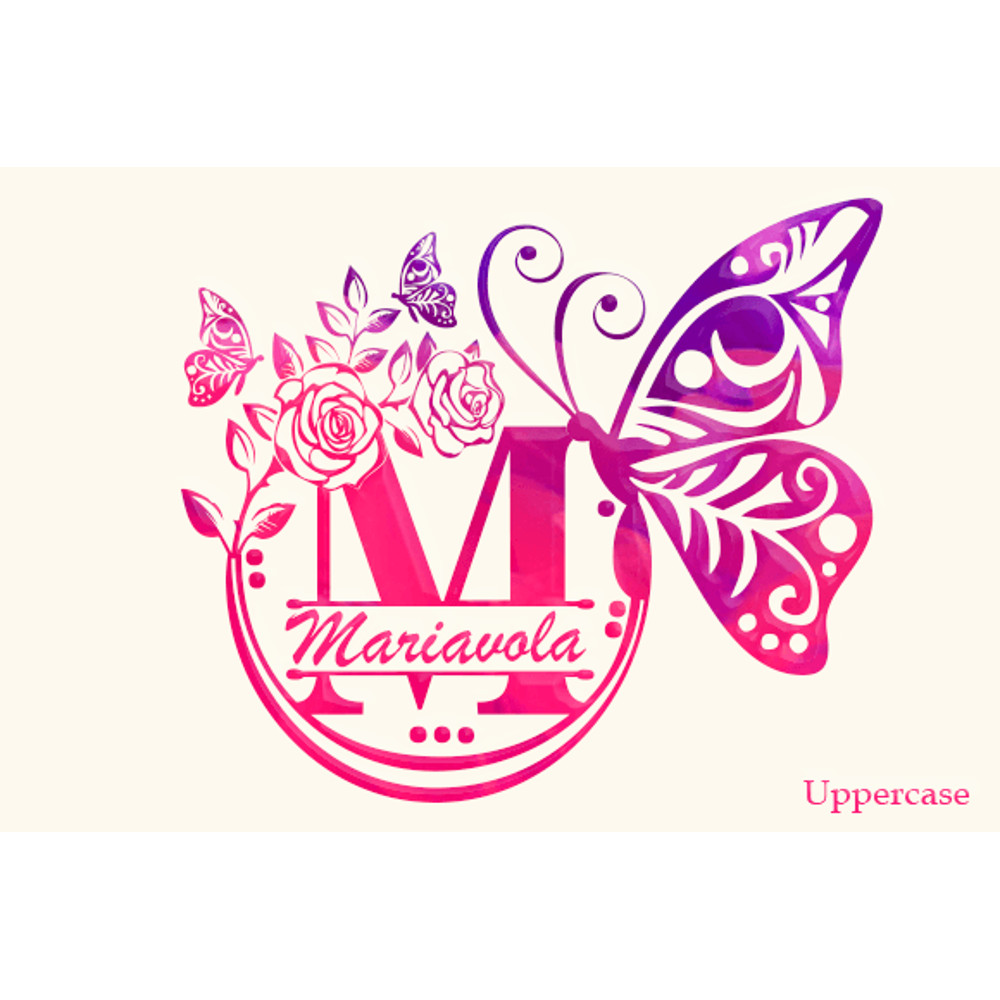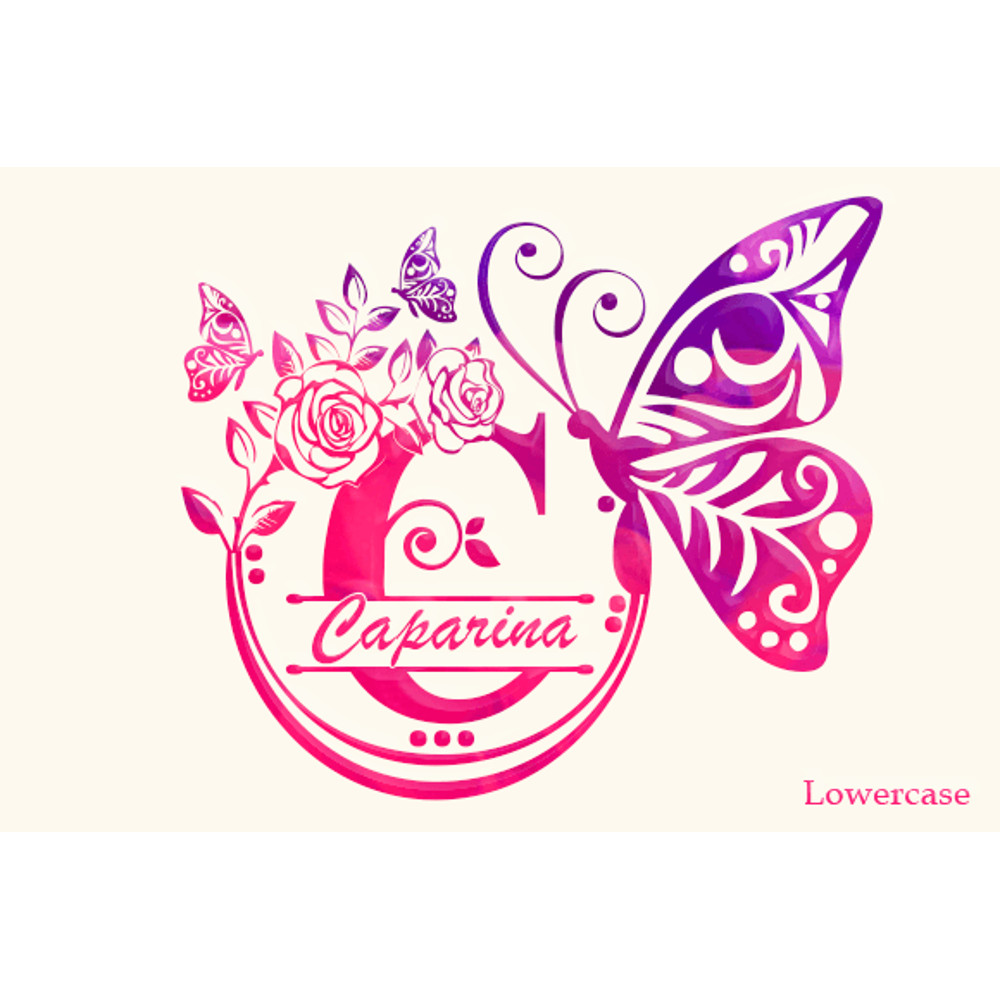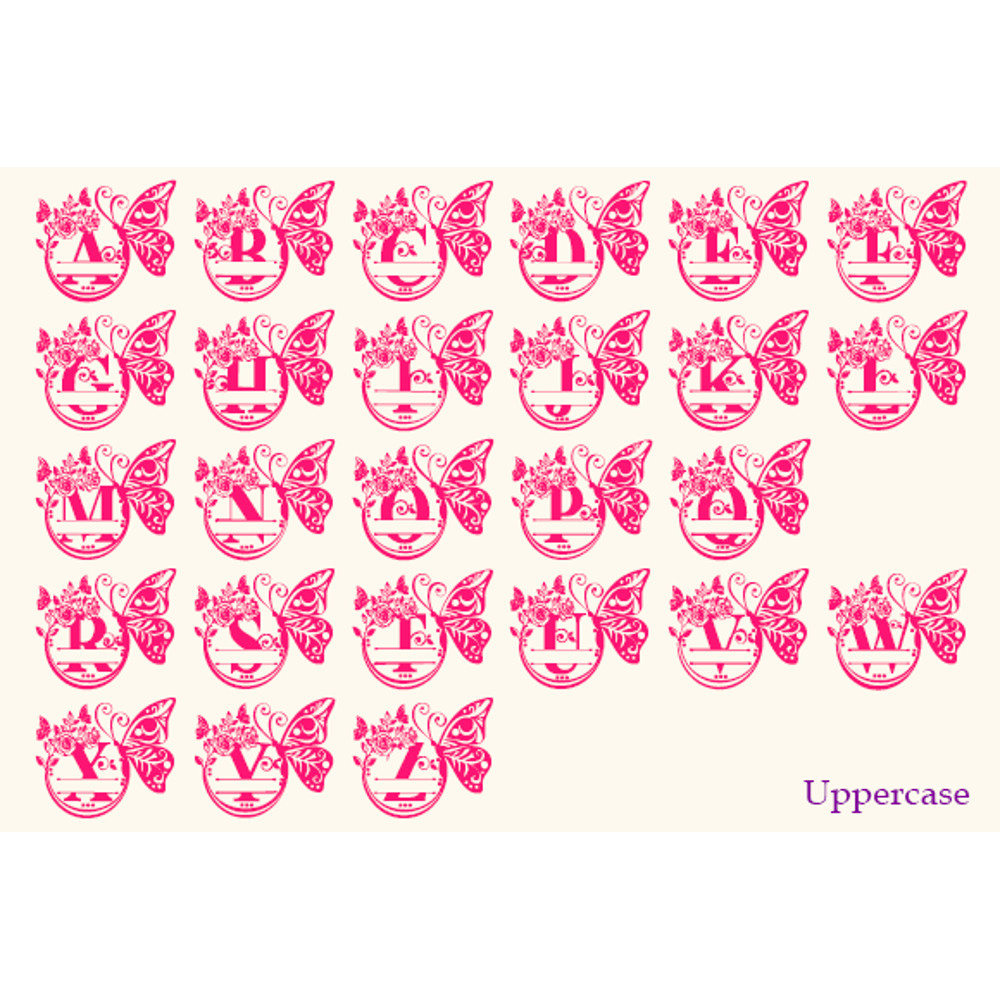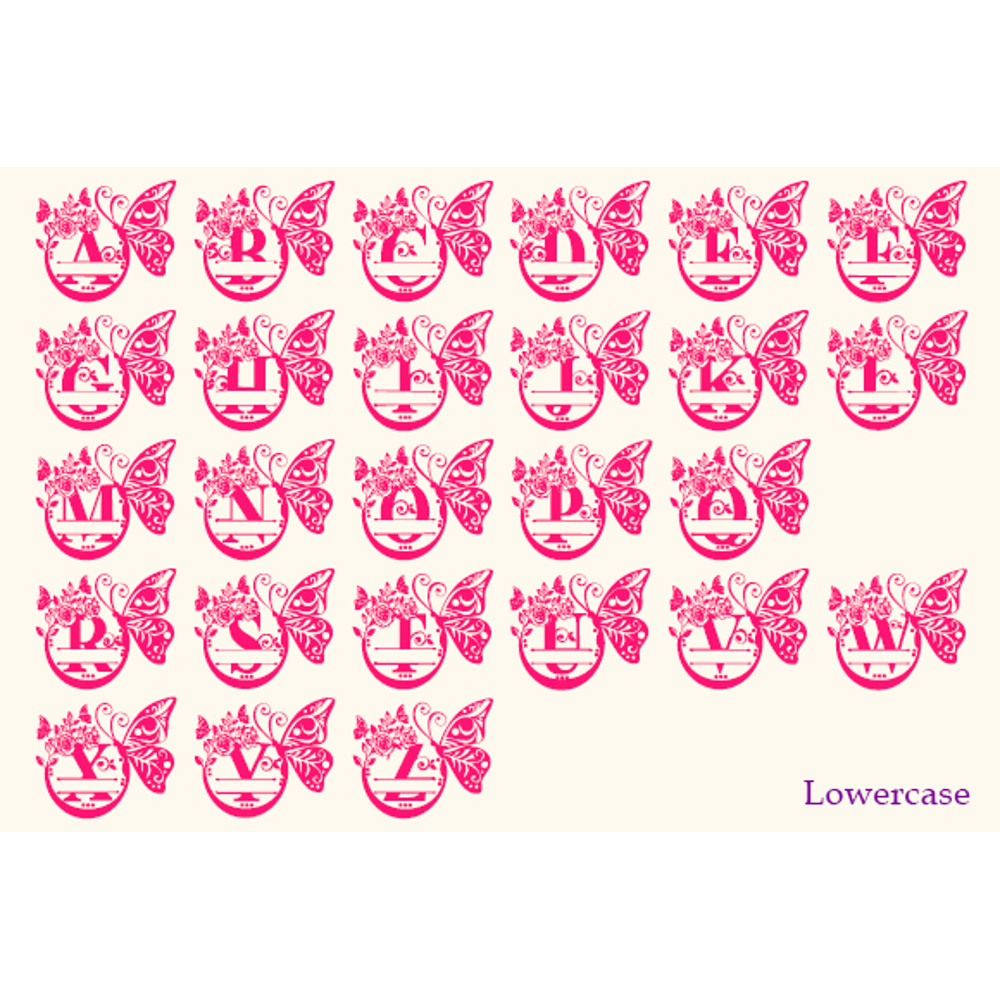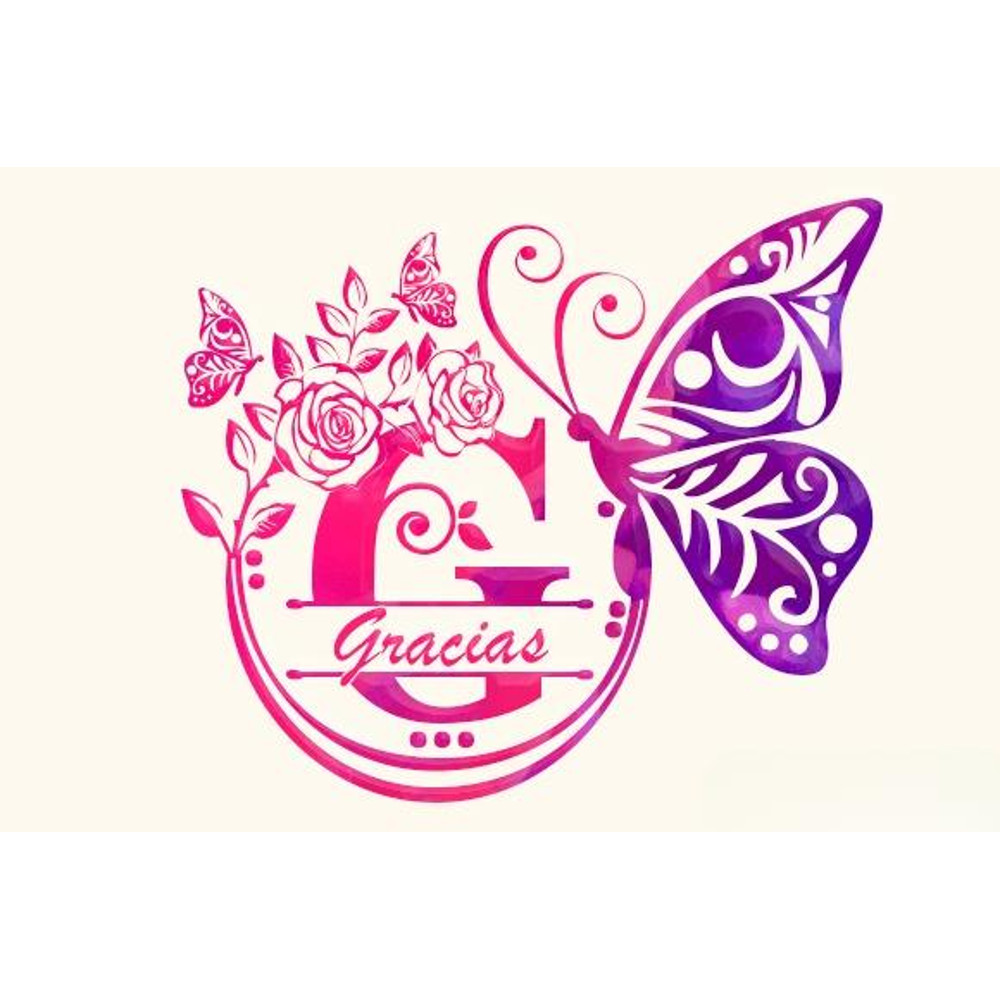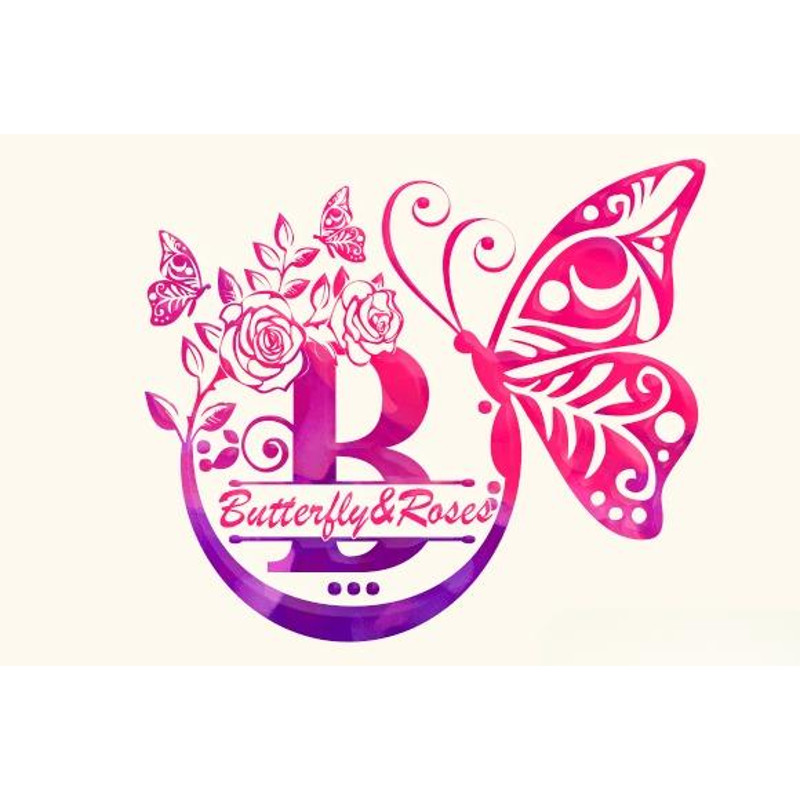
Butterfly and Roses Font
Butterfly and Roses is an elegant decorative font, featuring lovely ornaments. Fall in love with its authentic feel and use it to create gorgeous wedding invitations, beautiful stationary art, eye-catching social media posts, and cute greeting cards.